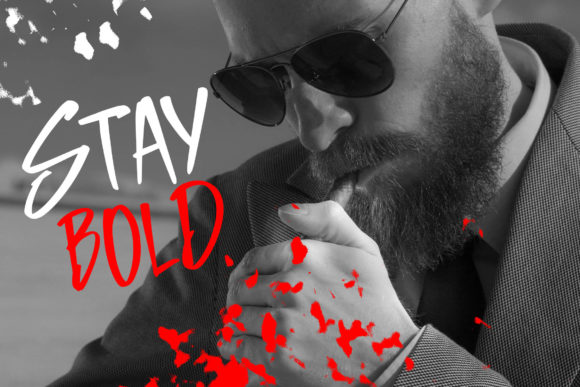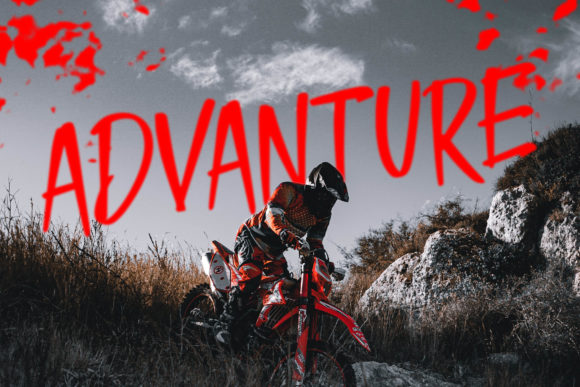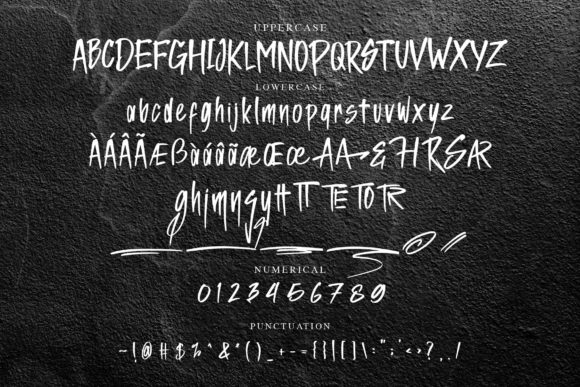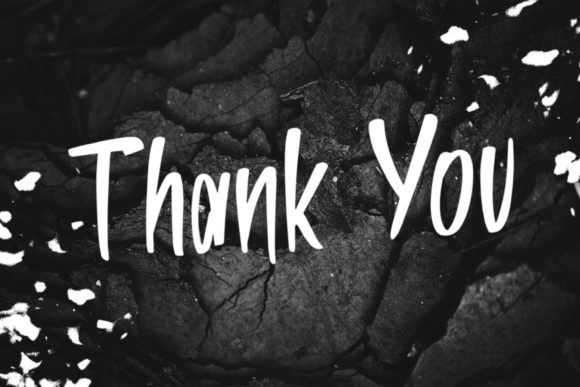
Introduction to Rush Track Font
Have you ever been stuck in the creative process, searching for that perfect font to give your design the edge it needs? It’s a feeling we’ve all been there, scrolling through countless font options, hoping to stumble upon that one gem that elevates our project from good to great. That’s exactly what happened to me when I discovered the Rush Track Font – a brushed, graffiti-styled display font that has a street art vibe like no other.
Rush Track Font is more than just a font – it’s a design resource that can breathe life into your creative project. With its high-quality, graffiti-inspired style, it’s perfect for designs such as t-shirts, sportswear, logos, advertisements, clothing, and more. And the best part? It’s free to download and use, making it an invaluable asset for designers of all levels.
Whether you’re working on a commercial project or a personal creative endeavor, Rush Track Font is an essential addition to your design toolkit. Its PUA-encoded glyphs and swashes make it easy to access and customize, allowing you to create unique and eye-catching designs with ease. And with its transparent background, you can rest assured that your design will shine without any distractions.
Key Features of Rush Track Font
- Rush Track Font is a high-quality, creative project design resource that can be downloaded for free, ideal for various design applications.
- The font features a transparent background, allowing for seamless integration with any design element.
- Unique to Rush Track Font is its modern and sleek aesthetic, making it an excellent choice for designers working on contemporary creative projects.
- The font’s versatility and high-quality design make it a valuable design resource for designers working on various creative projects, from digital to print media.
Honest Review: Rush Track Font
I recently stumbled upon the Rush Track Font and I must say it’s a great addition to any designer’s toolkit. The font is free to download and offers a high quality, sleek design that’s perfect for any creative project.
Here are some things that I think work well:
- ✨ Unique and modern design aesthetic
- ✨ Compatible with a variety of operating systems and devices
- ✨ Transparent background makes it easy to layer with other design elements
As with any font, there are some limitations:
- ⚠️ Limited character set, may not be suitable for extended text content
- ⚠️ Some users may find the font too bold or overpowering
Overall, I’m really impressed with the Rush Track Font. It’s a versatile design resource that can add a touch of sophistication to any creative project. With a little creativity, I think this font has the potential to elevate even the most mundane designs.
Rush Track Font
Tips for Getting the Most Out of Rush Track Font
For the best results, use the Rush Track Font with a transparent background to create a clean and modern design. Experiment with different font sizes and styles to achieve the desired look for your creative project.
The Rush Track Font is ideal for:
- Music-related projects, such as album art and concert posters.
- Event invitations and promotional materials.
- Graphic design projects that require a unique and stylish look.